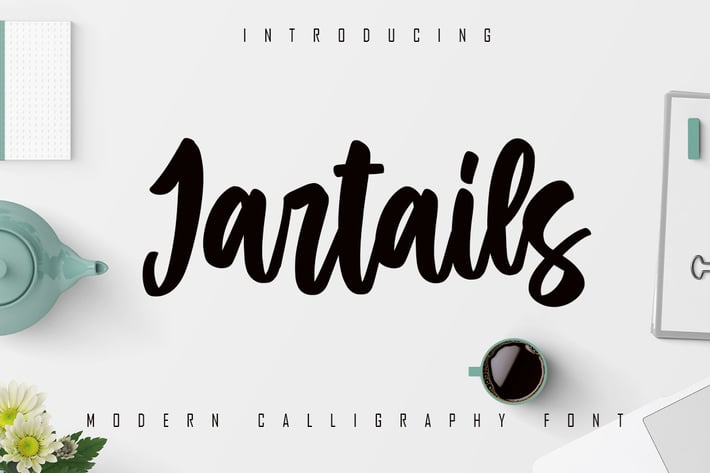
Jartails - Modern Calligraphy Font
Jartails is an elegant and beautiful handwritten script font, suitable for the promotion of your product and helps design your writing to be more attractive and also this font is neatly arranged and modern
+ Ligature
+ Basic Latin Language Support (AÀÁÂÃÄÅCÇDÐEÈÉÊËIÌÍÎÏÑOØÒÓÔÕÖUÙÜÚÛWYÝŸÆß )